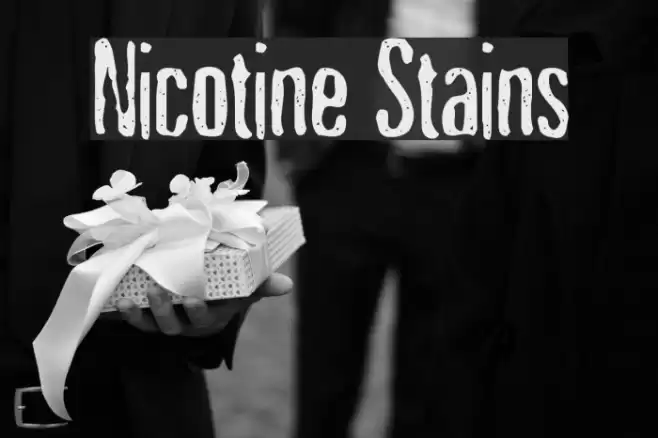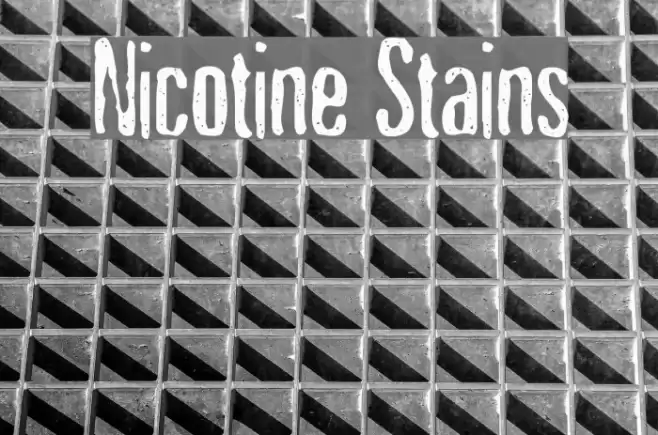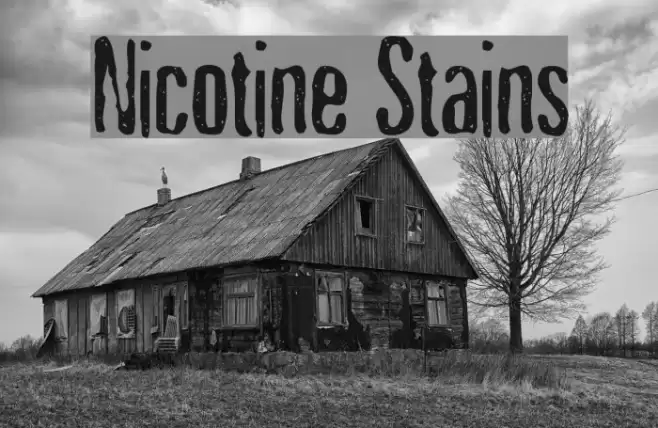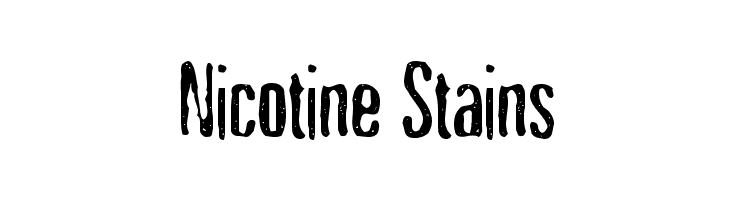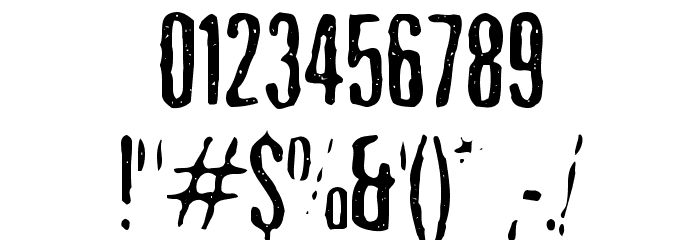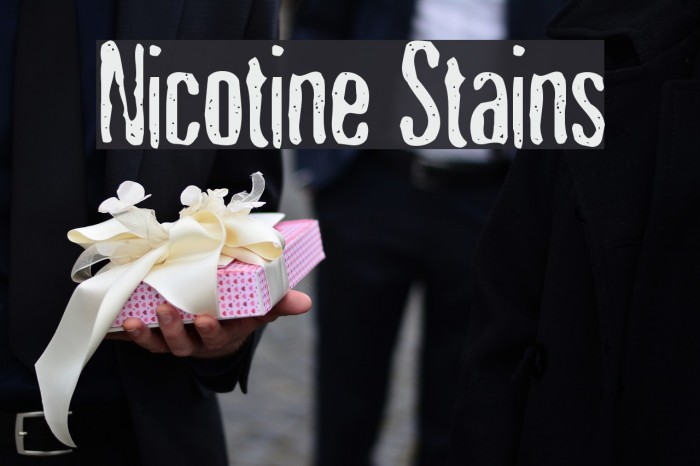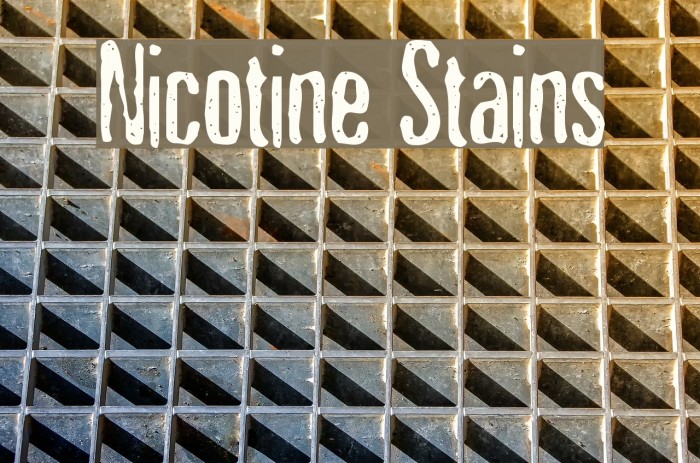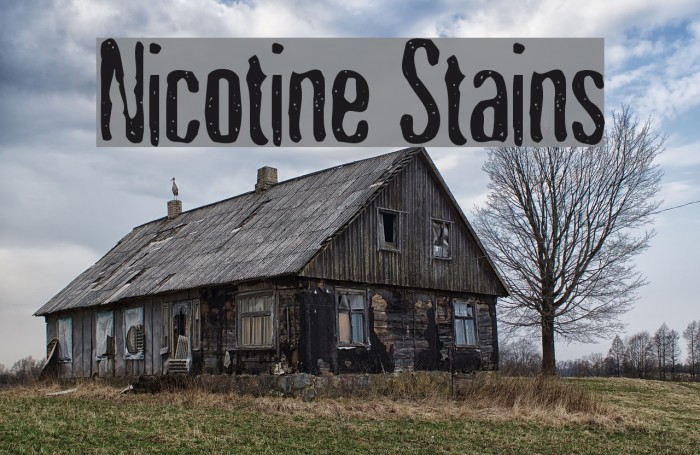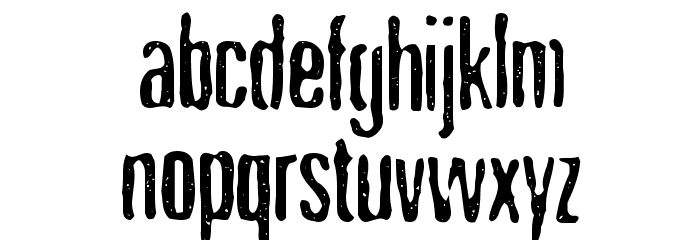
Nicotine Stains Font
Nicotine Stains Description
This font features a distressed and grungy aesthetic, characterized by uneven edges and a textured appearance that mimics the look of worn or aged materials. The uppercase and lowercase letters maintain a consistent height, with slightly elongated forms that give a sense of verticality. Numbers and special characters follow the same stylistic cues, ensuring a cohesive look across all glyphs. The font's unique style is reminiscent of vintage signage or old typewriter text, making it ideal for projects that require a touch of nostalgia or a rugged, handcrafted feel.
A distressed, textured font with a vintage, grungy aesthetic from Broken fonts.
- Proposed Projects: Ideal for vintage-themed posters, album covers, branding for rustic or artisanal products, and any design needing a retro or handcrafted touch.
- Overall Style: Vintage
- Use Case: Logos, Posters, Headlines